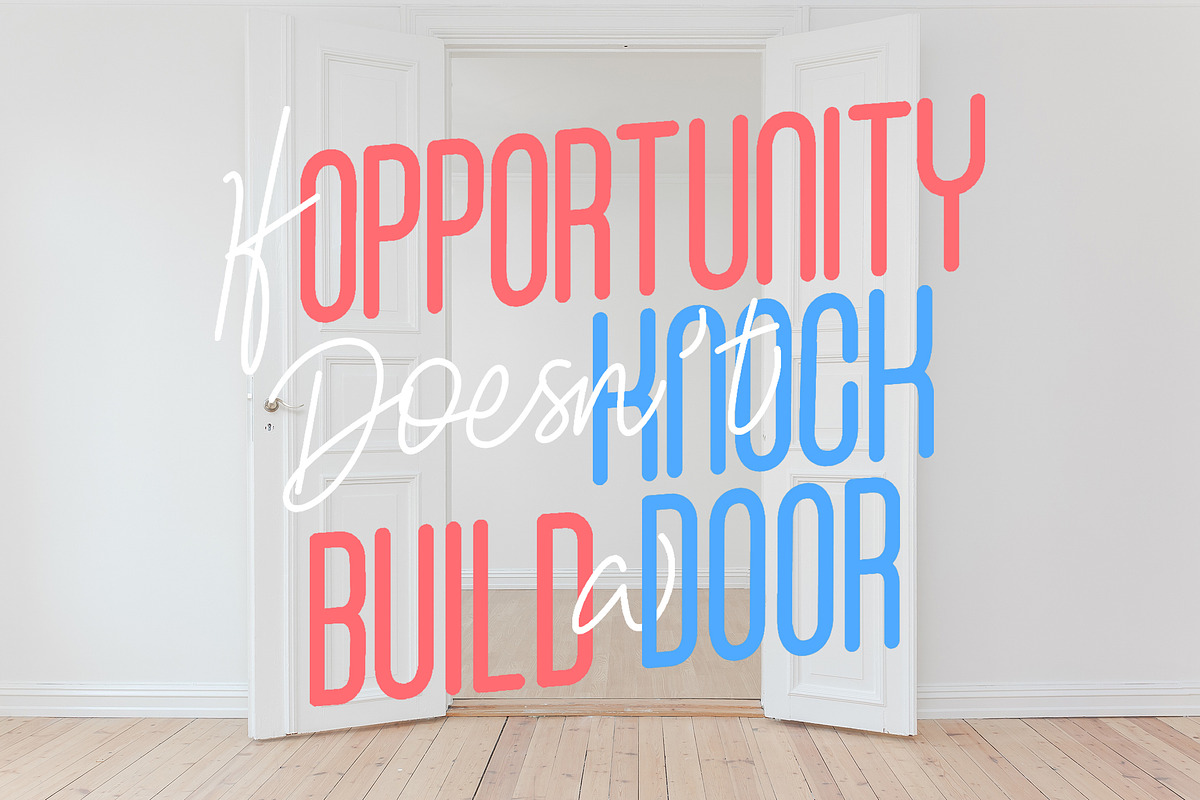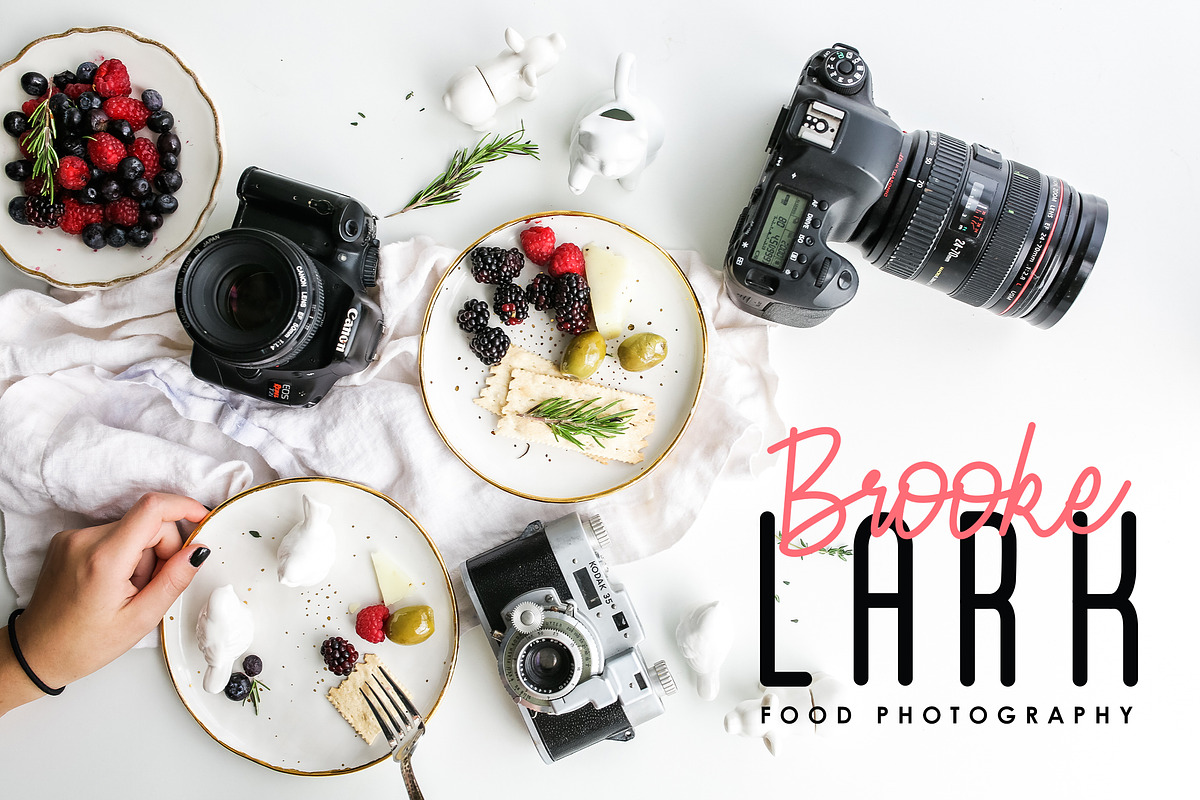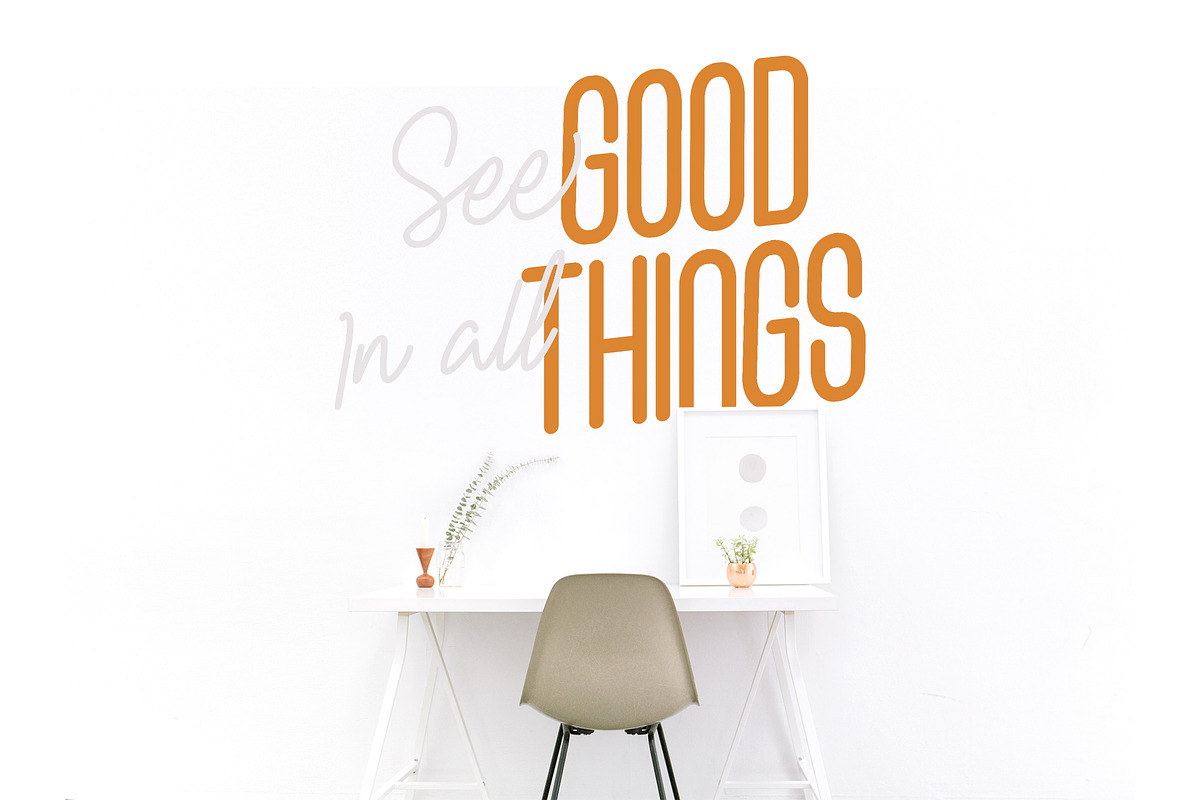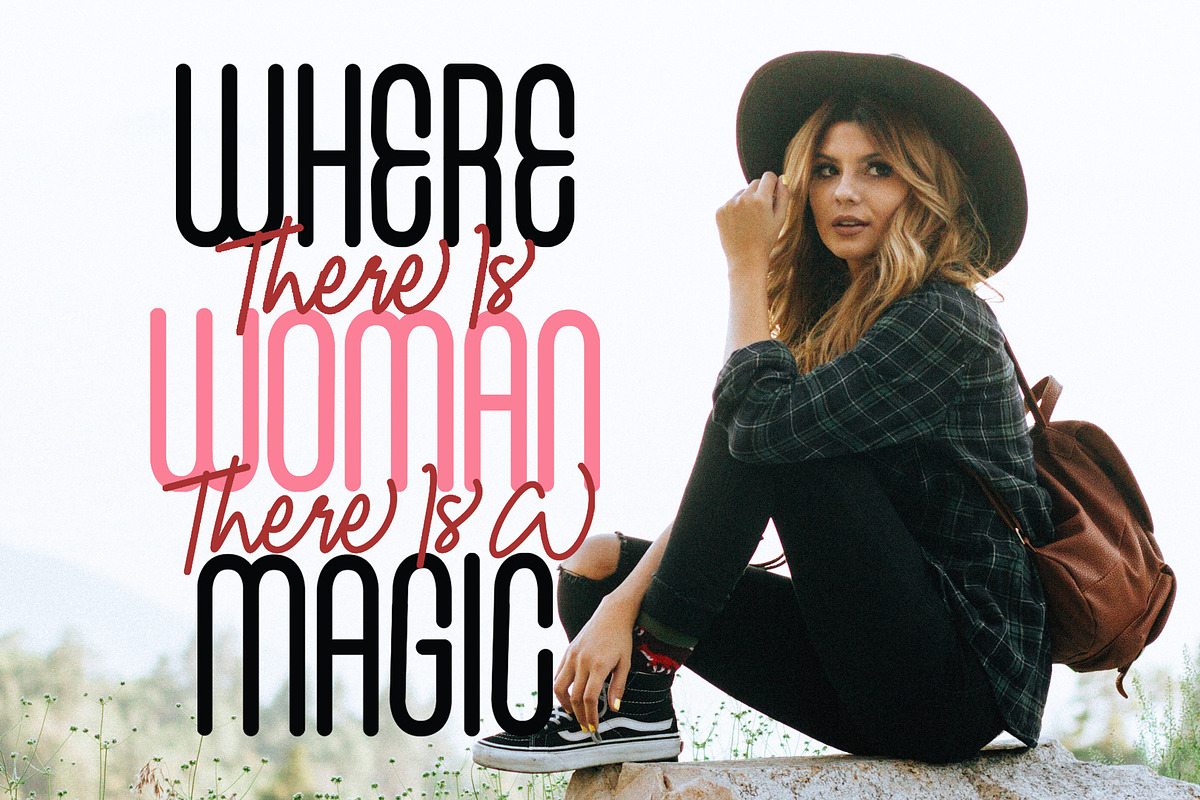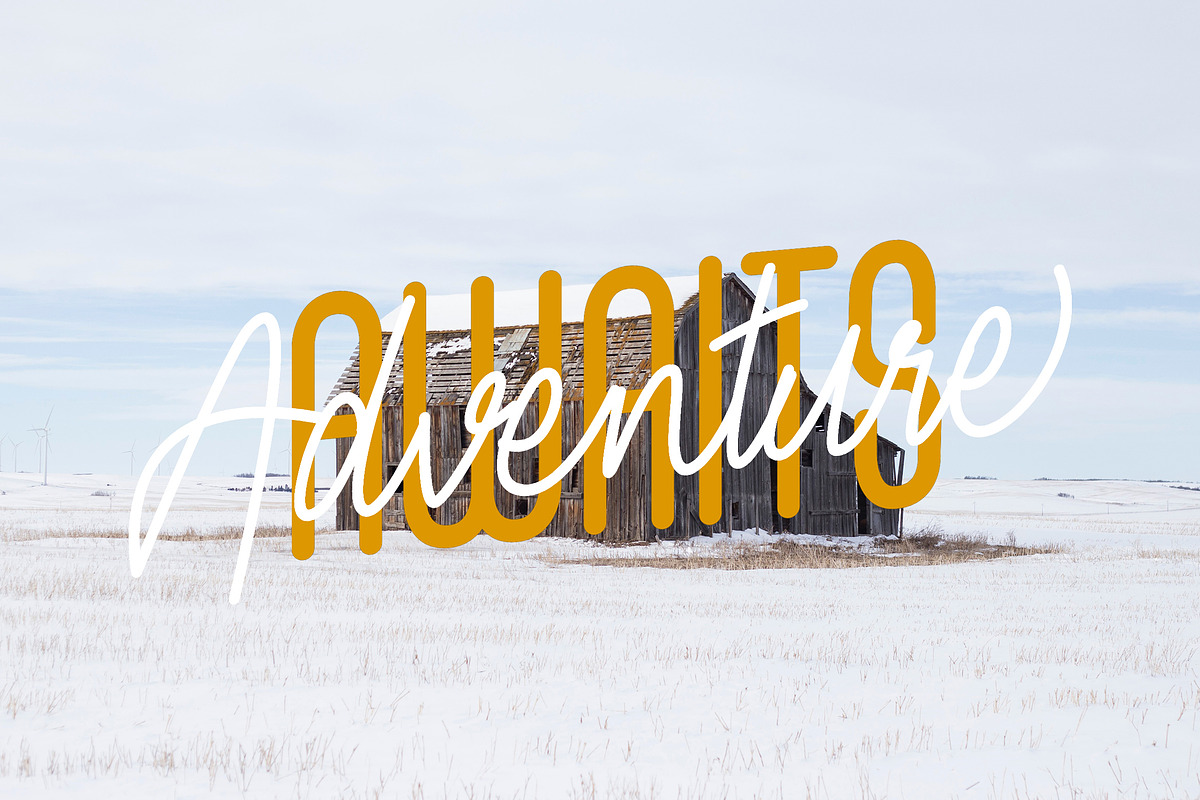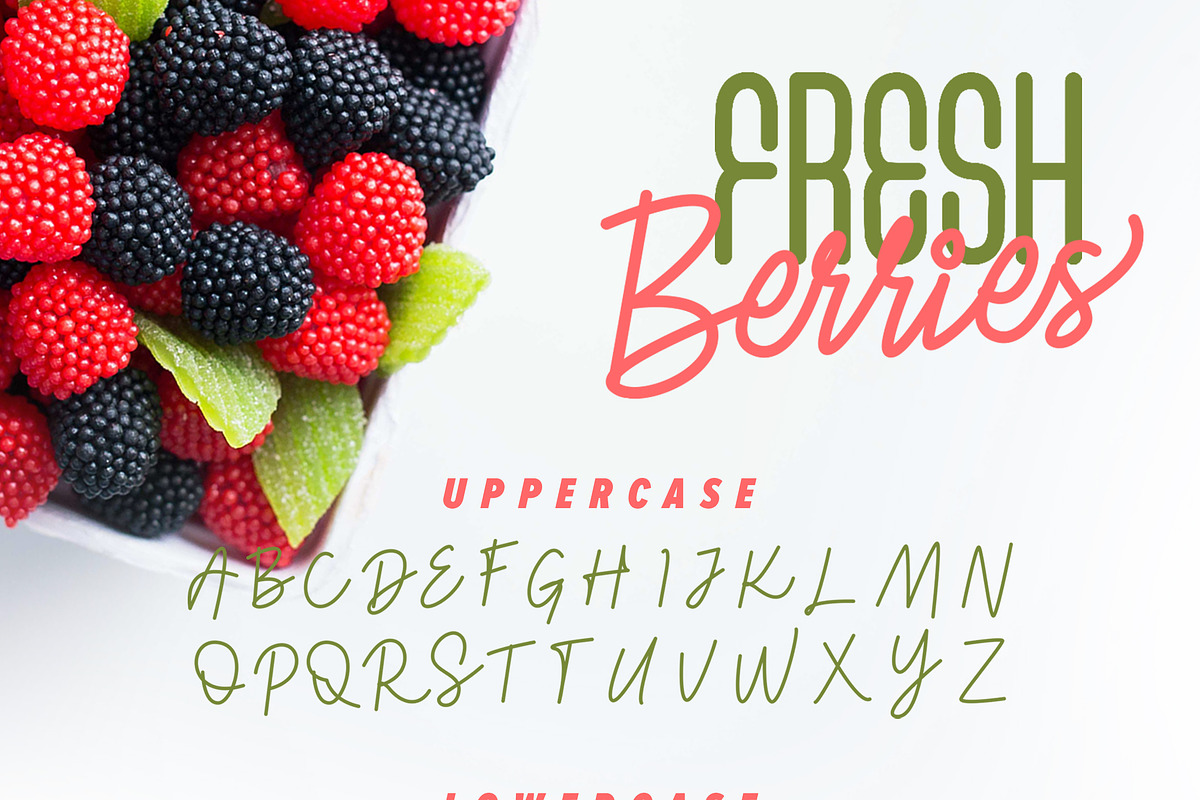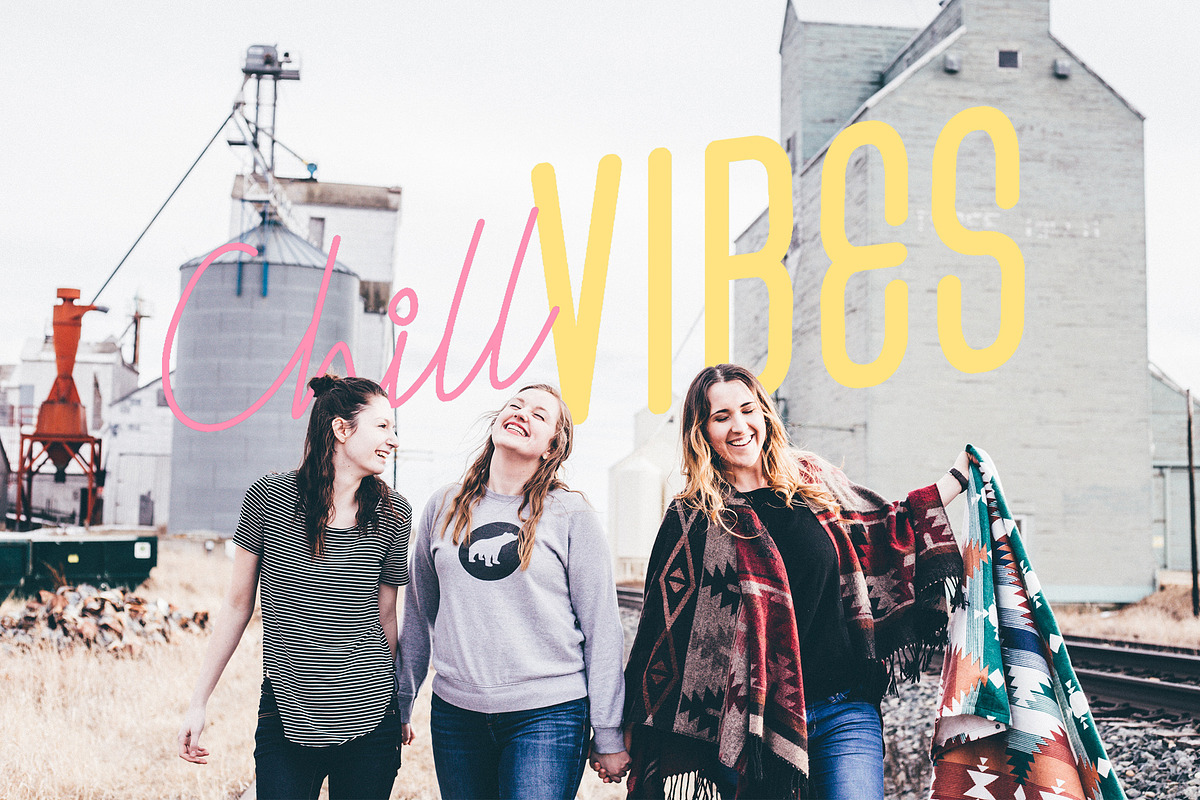
Fresh Berries - Script & Sans Font
"Fresh Berries" is a font display is made by hand, inspired by classic posters.
comes with uppercase, lowercase, numerals, punctuations and so many variations on each character include OpenType alternates, common ligatures and also additional swash to let you customize your designs. Perfect to use for Logotype, Letterhead, Poster, Apparel Design, Label and etc.
Why Fresh Berries - Script & Sans Font is worth a look
Fresh Berries - Script & Sans Font by Inspiratype fits naturally into Branding, posters, packaging, typography.